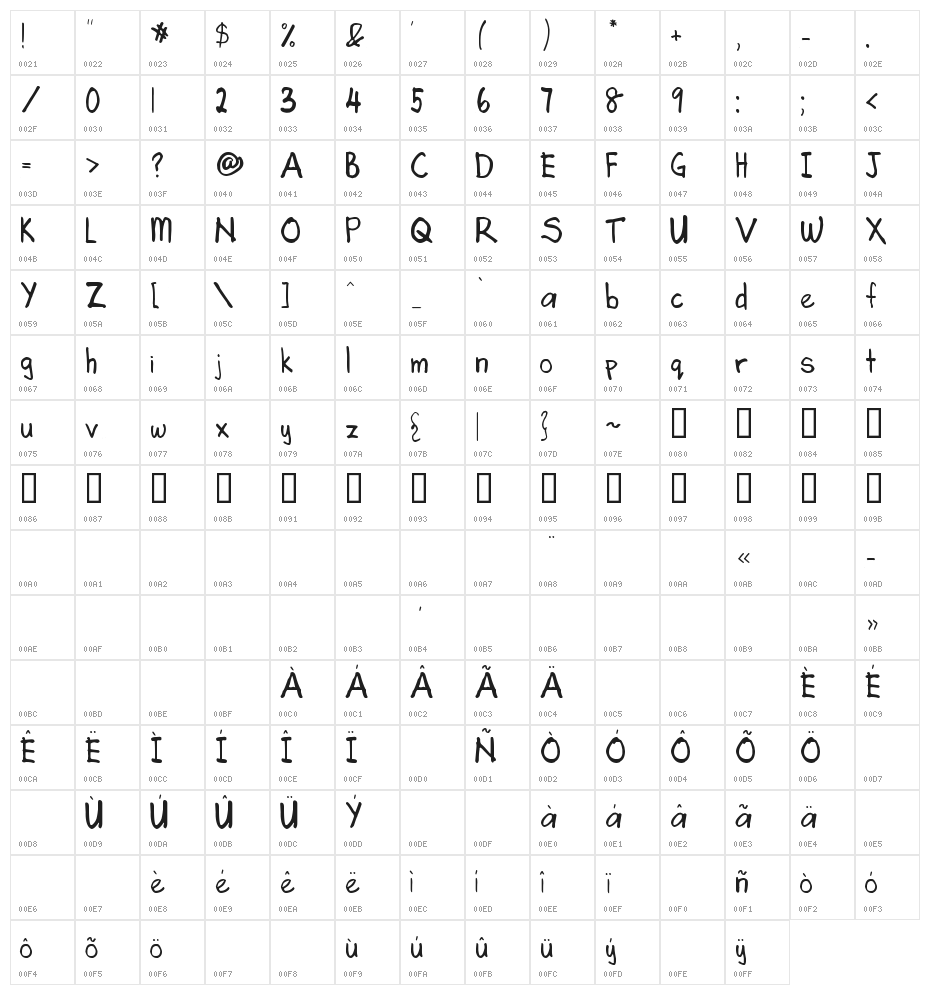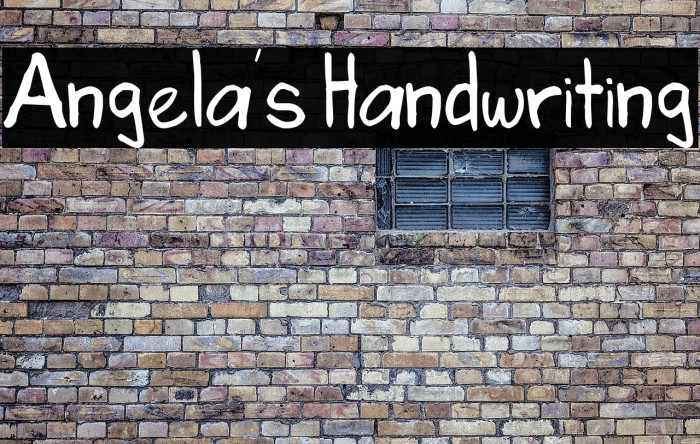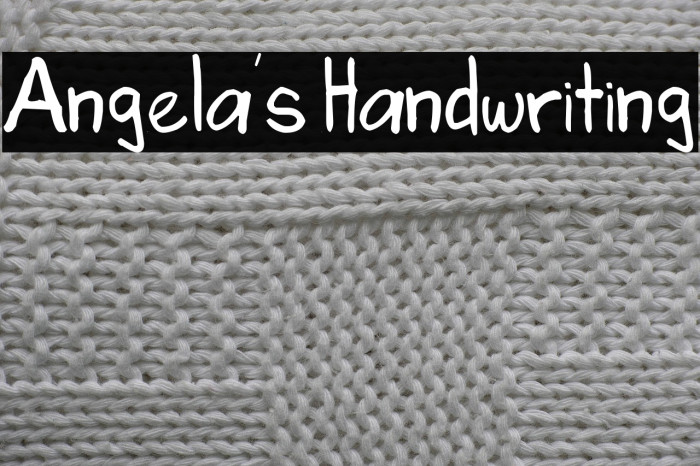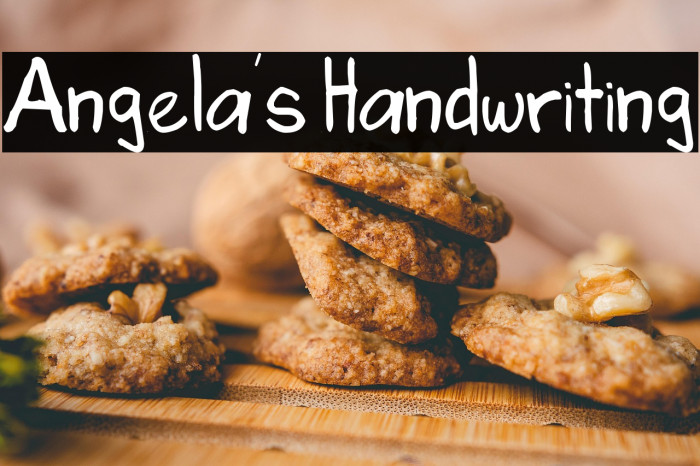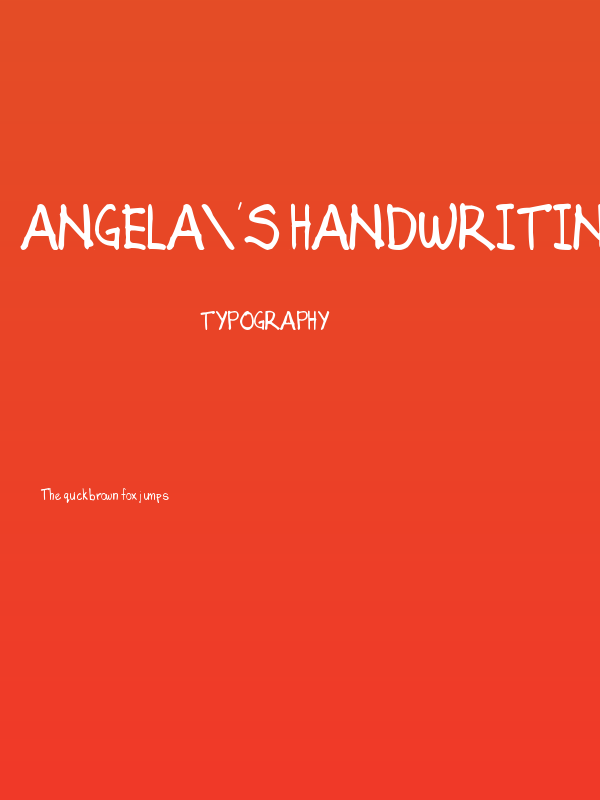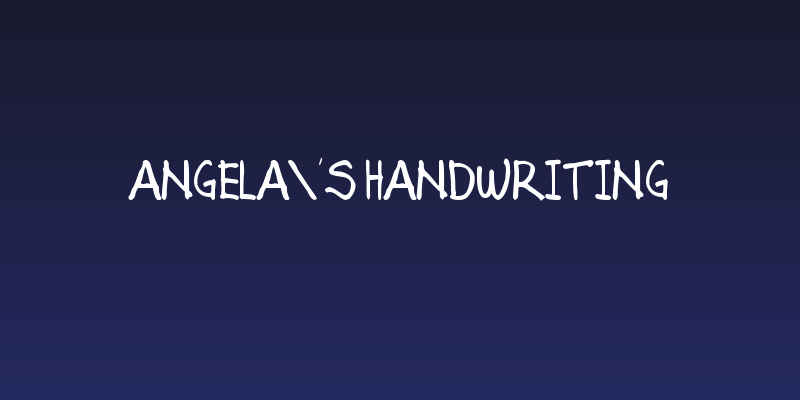
Angela's Handwriting Font
Angela's Handwriting Description
A playful and casual handwritten font with a slightly uneven baseline and rounded edges, giving it a friendly and approachable appearance.
| Overall Style | Casual, Friendly |
| Use Case | Informal text, Personal projects |
| Proposed Projects | Greeting cards, personal notes, informal invitations. |